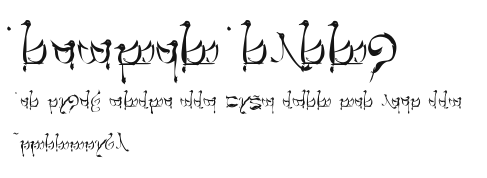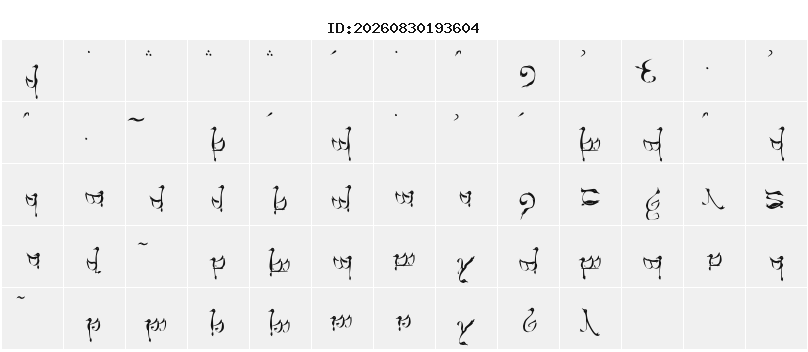
Tengwar Teleri Preview
• Font Name: Tengwar Teleri
• Designer: Josh Griffing --- Redruth's Basement Software
• Manufacturer: Redruth's Basement Software
• Description: Tengwar Teleri is based (somewhat loosely) on the elven runes of J. R. R. Tolkein. The Teleri were one of the the three races of the High Elves, a portion of whom remained in Beleriand with Elwë Thingol and became the Sindarin, the Grey Elves of Middle Earth, while many others were carried to within sight of Valinor by Ulmo of the waters. There they dwelt in Tol Eressëa under the stars, and built tall swan ships and sailed the Sundering Seas. I have designed this font to reflect this; there is no precident for cygnoform tengwa in Tolkien's own work. Redruth's Basement is in no way affiliated with the Tolkein Estate.